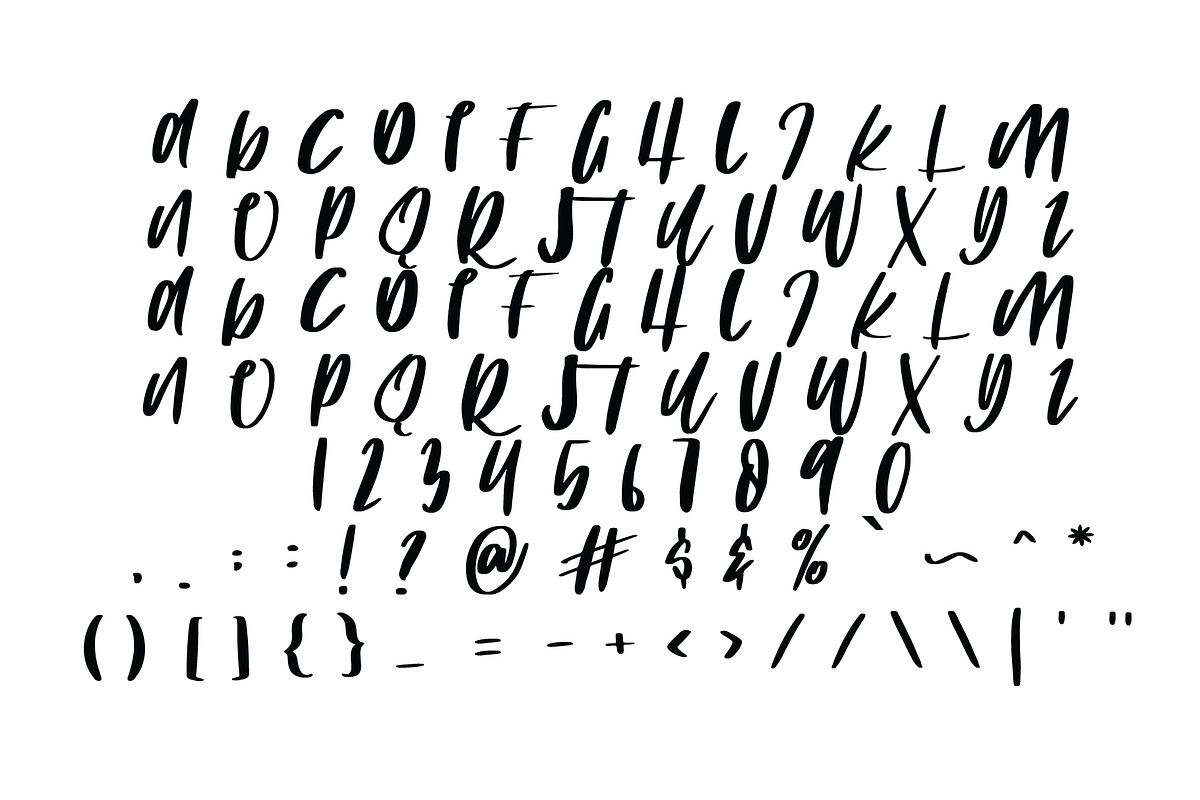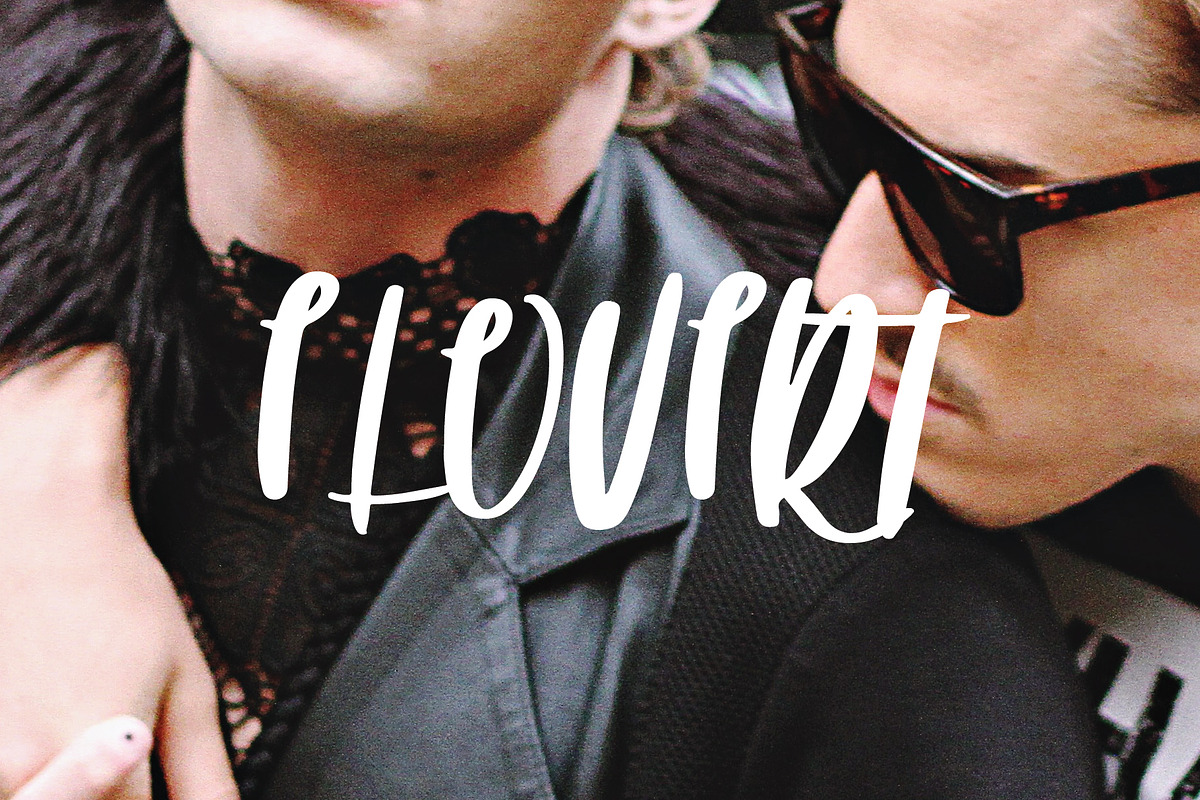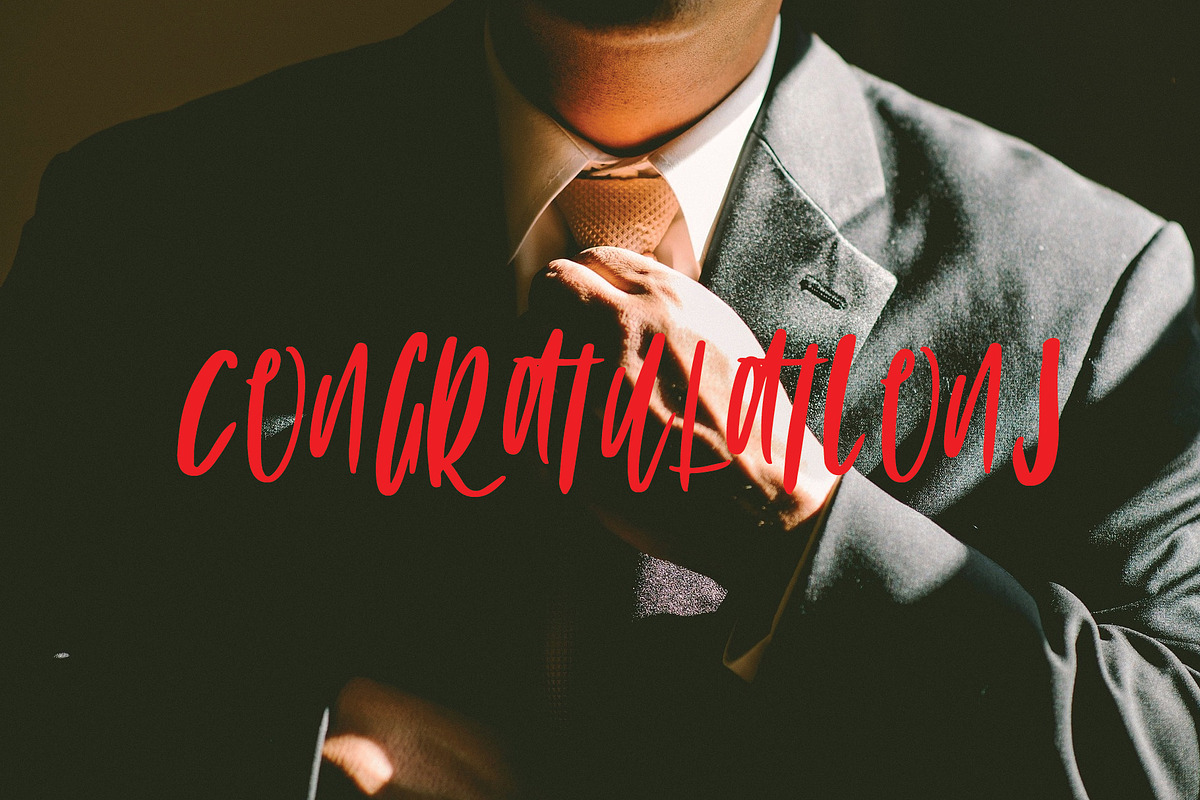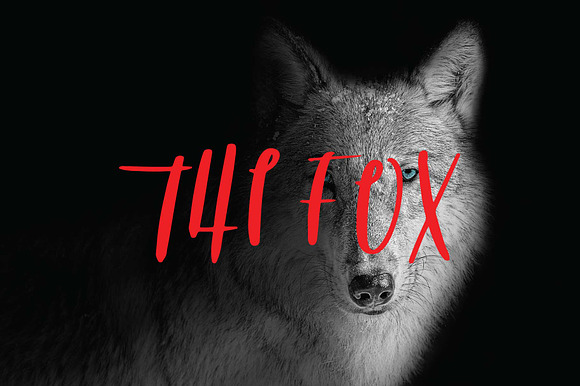
The fox font
The Fox Font by Goodigital13 is a font selected for branding, posters, packaging, typography.
Why The fox font is worth a look
The fox font by Mariyana fits naturally into Branding, posters, packaging, typography.